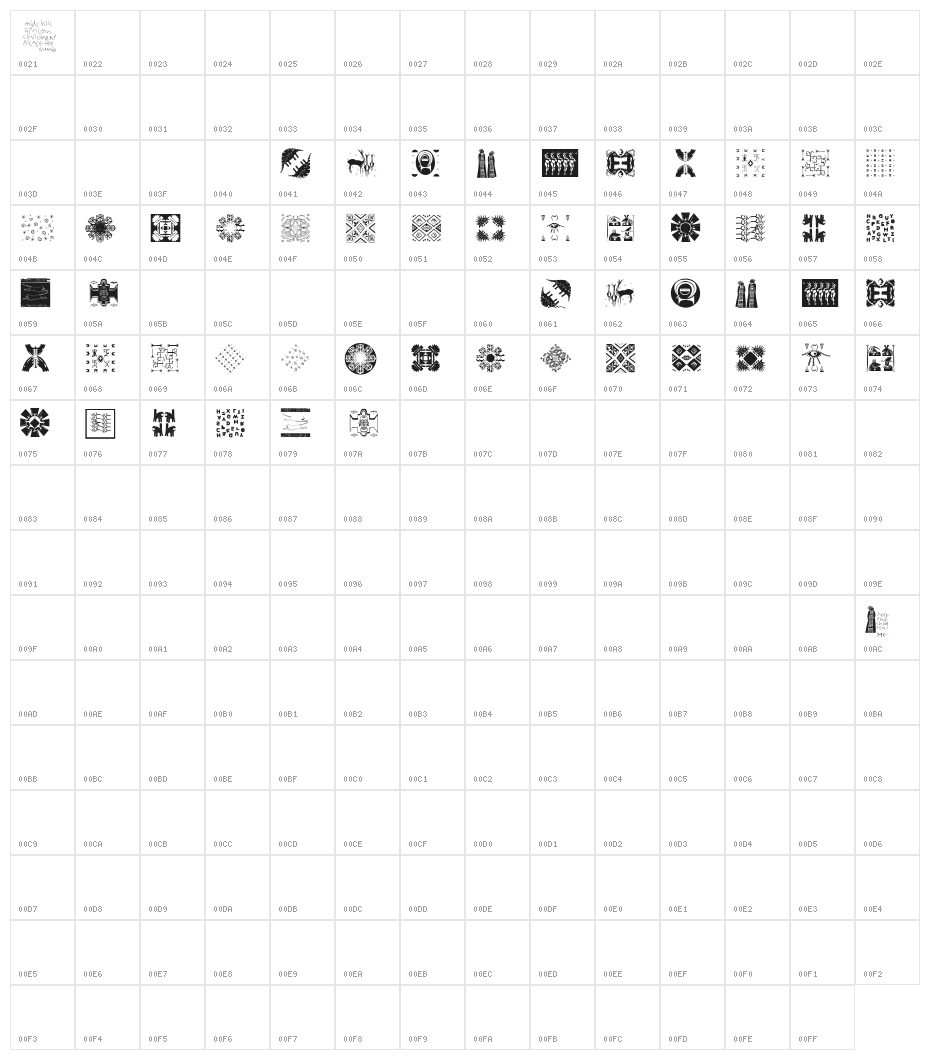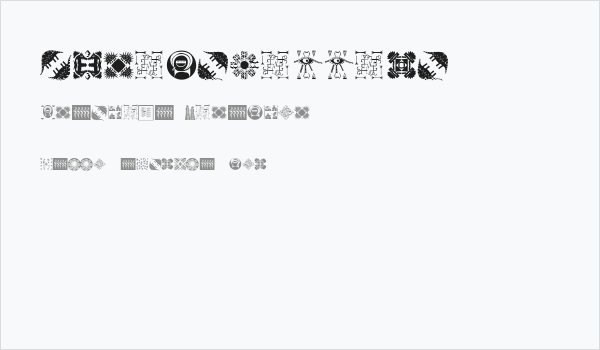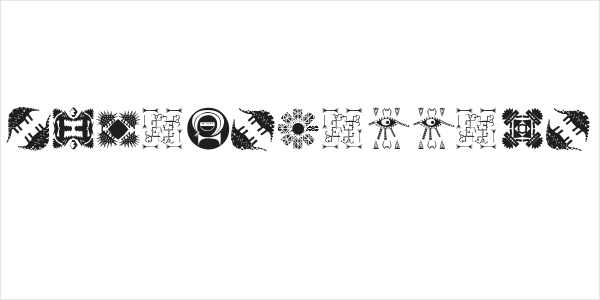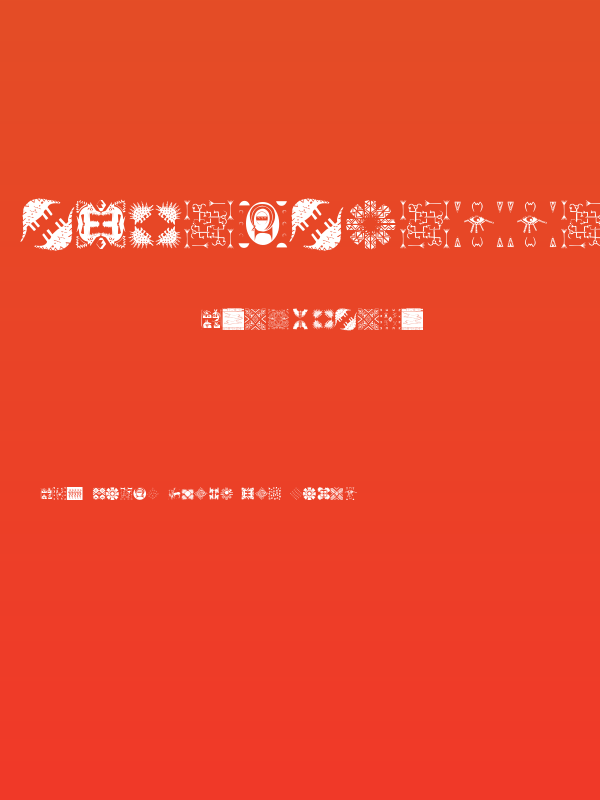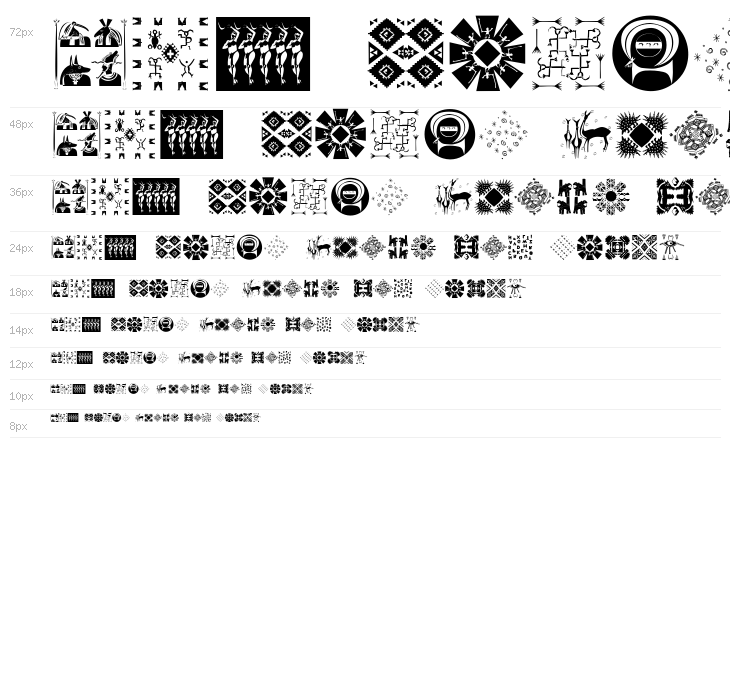
Africanissima Font
Africanissima Description
This collection features a series of intricate, culturally inspired symbols and patterns, each with a distinct African influence. The designs are bold and striking, incorporating elements such as animals, masks, and geometric shapes. The patterns are highly decorative, with a strong emphasis on symmetry and detail. Each symbol is unique, showcasing a variety of artistic styles that reflect traditional African art. The use of black and white enhances the contrast and highlights the intricate details within each design.
Use CaseLogos, Art projects, Cultural displays
Proposed ProjectsIdeal for cultural projects, textile designs, art installations, and educational materials focusing on African heritage.